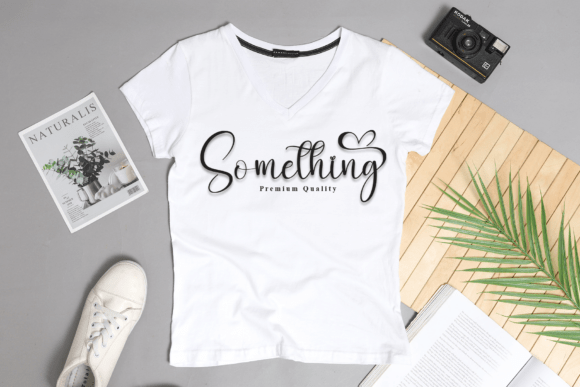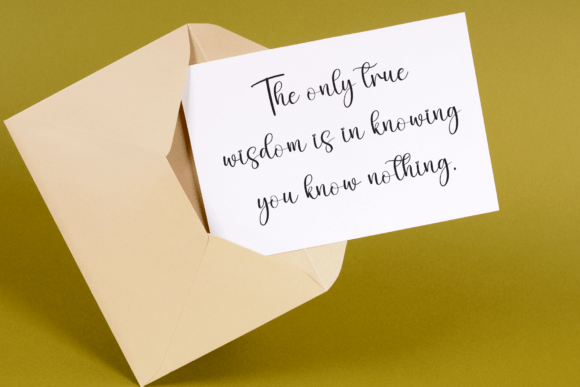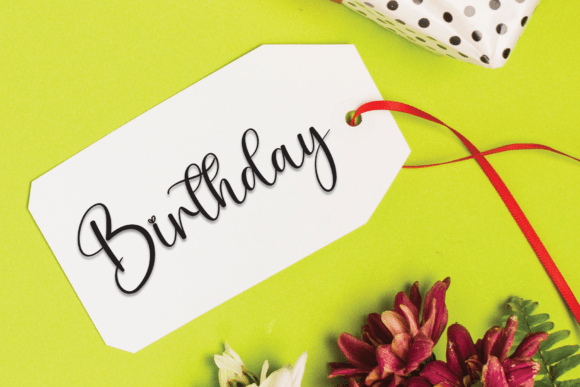
Big Baby Font
Big Baby is a beautifully flowing script font with a modern calligraphy touch. Its graceful curves and stylish flourishes create an elegant and sophisticated look, perfect for wedding invitations, branding, social media, and luxury projects. This font adds a touch of charm and refinement to any design!